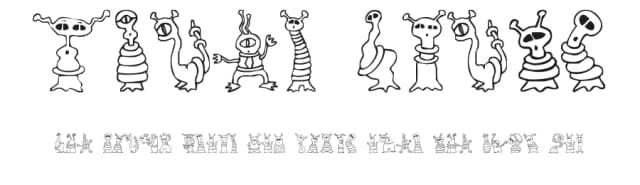
About Clowners Font
Clowners is a dingbat font designed by Cyberbuny Creations. It includes 63 glyphs, a regular weight, TTF (TrueType) format, and 89 languages. Clowners is free to download; check the license details on this page before commercial use. Dingbat fonts like Clowners work best for icons, ornaments, bullet points, and decorative accents.
Clowners Font is a versatile dingbats font that works for both headings and body text. Pair it with a contrasting sans-serif or serif font to add visual interest and a clear distinction between titles and body copy.
Clowners Font
Clowners Font is a dingbats typeface by Cyberbuny Creations, ideal for logos, invitations, branding, and creative projects.